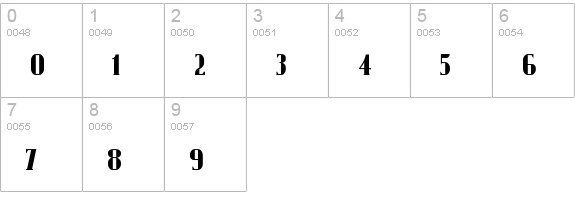
FundRunk-Normal Font Details
FundRunk-Normal is the standard, neutral variant in the FundRunk typeface family \xE2\x80\x94 well suited to general body text, paragraphs, and standard typographic work.
FundRunk-Normal font is a versatile and modern typeface designed to bring a touch of sophistication to any project. With its clean lines and sleek appearance, FundRunk-Normal is perfect for a wide range of applications, from branding to editorial design. This font strikes the perfect balance between professionalism and approachability, making it suitable for both formal and casual settings. The best part about FundRunk-Normal font is that it is completely free to download at FontsMarket.com. This means that you can enhance your designs with this elegant typeface without having to spend a dime. Don't miss out on this opportunity to elevate your projects with the timeless appeal of FundRunk-Normal font – download it today and see the difference it can make!